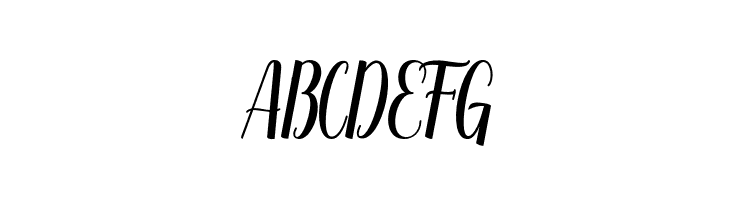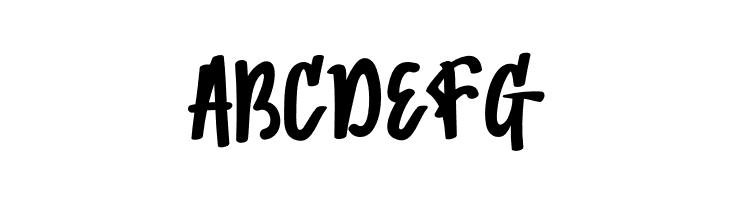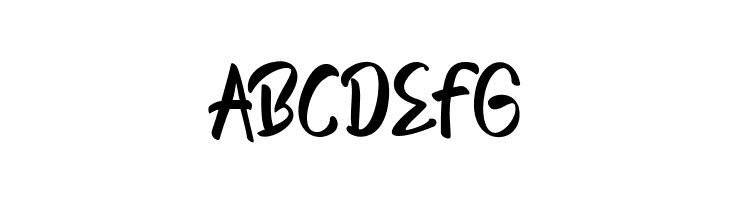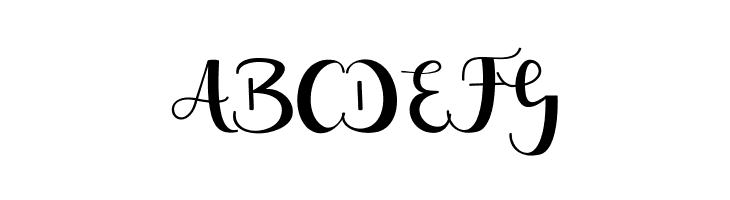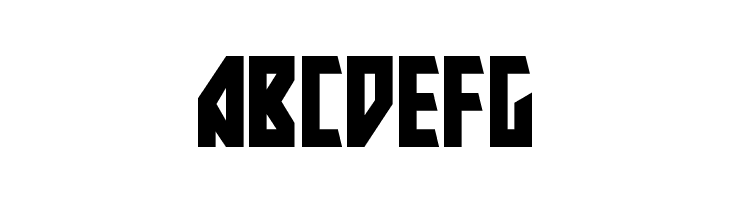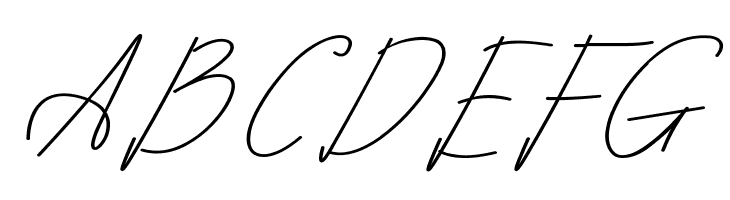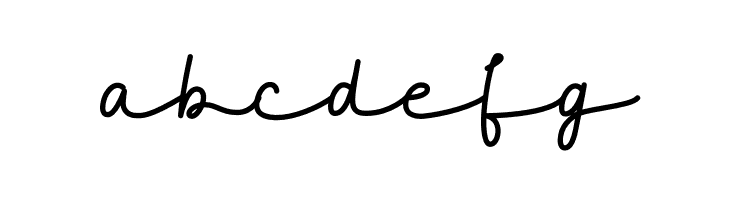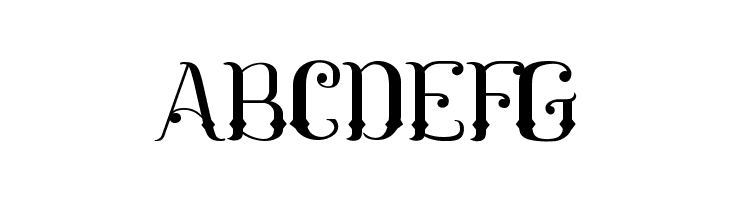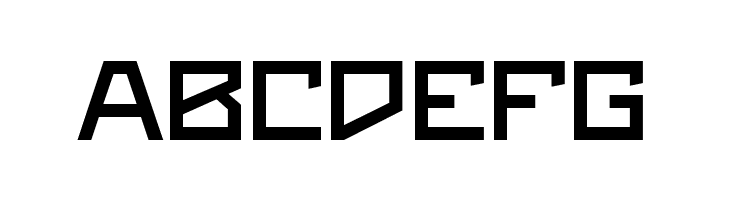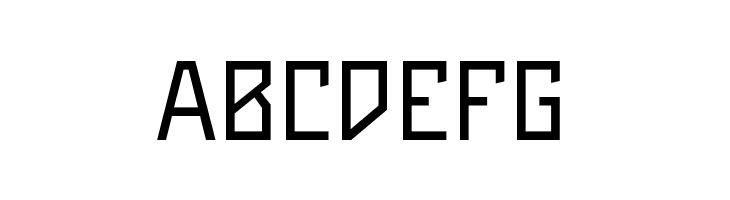
• Magnetar Regular
A futuristic, geometric font with sharp angles and clean lines.
• Magnetto
A bold, playful script font with a dynamic, handwritten style.
• Magnificent Free
A playful and artistic script font with dynamic strokes.
• Magnillium
A flowing, cursive font with elegant, sweeping strokes and high contrast.
• magnum
A flowing, elegant script font with a handwritten style.
• Mahadetty
A cursive, handwritten font with elegant, flowing lines and a personal touch.
• Mahalo, brother!
A playful, handwritten font with rounded, smooth letterforms and a casual vibe.
• Mahaputra
A bold, decorative font with intricate serifs and flourishes.
• Maheswari
A bold, expressive handwritten font with fluid strokes and artistic flair.
• mahligai
A modern, elegant script font with graceful loops and artistic flourishes.
• mahony
A modern, elegant script font with a dynamic slant and smooth curves.
• mahony
A dynamic and elegant script font with flowing, cursive letterforms.
• Maidenhair-DEMO
A smooth, flowing script font with a natural handwriting style.
• Maiers Alte Nr.8 Reduced Bold
A bold, textured font with a vintage, industrial aesthetic.
• Maiers Alte Nr.8 Reduced Light
A rustic, hand-drawn font with a vintage and monolinear style.
• Maiers Neue Nr.8 Reduced Black
A bold, geometric font with blocky, angular letterforms and a modern, assertive style.
A bold, geometric font with sharp angles and an expanded width.
A bold, geometric font with angular lines and a modern industrial feel.
• Maiers Neue Nr.8 Reduced Bold
A bold, geometric font with strong, angular lines and a modern aesthetic.
A bold, expanded geometric font with a modern and technical style.
• MaisaraScript
An elegant script font with flowing, cursive letterforms and sophisticated swashes.